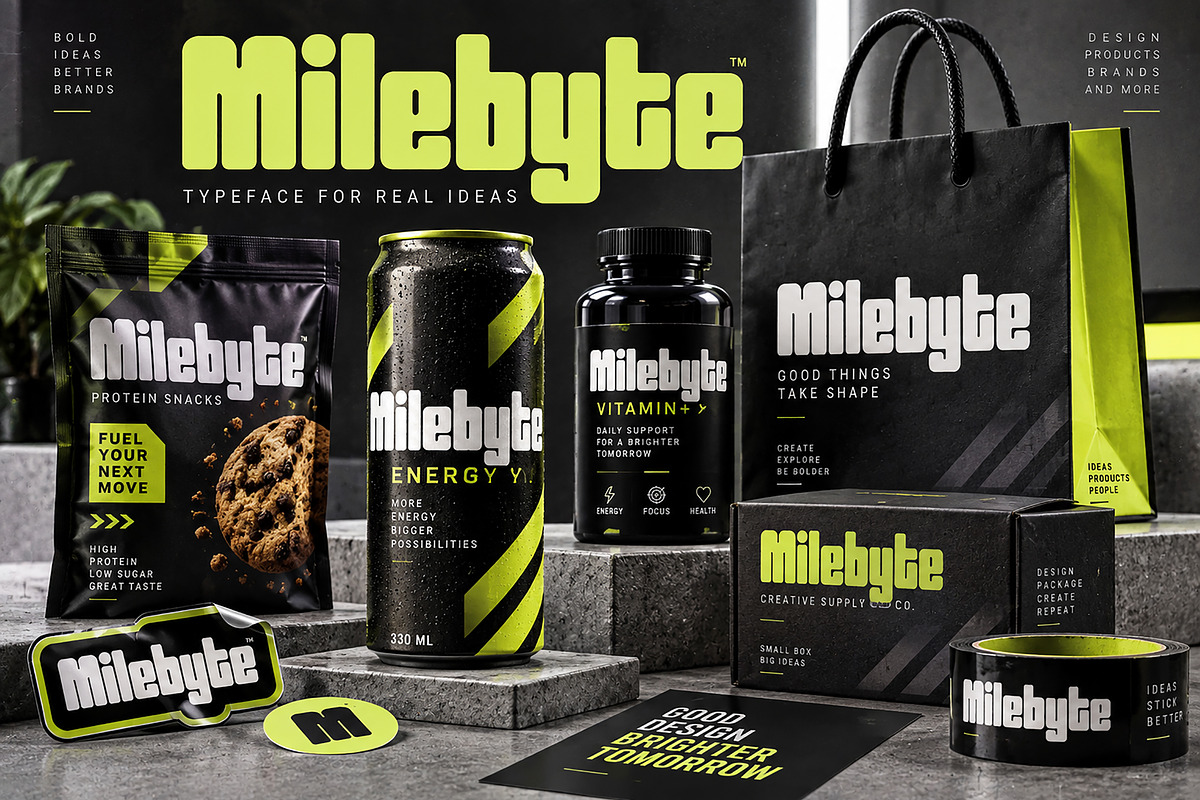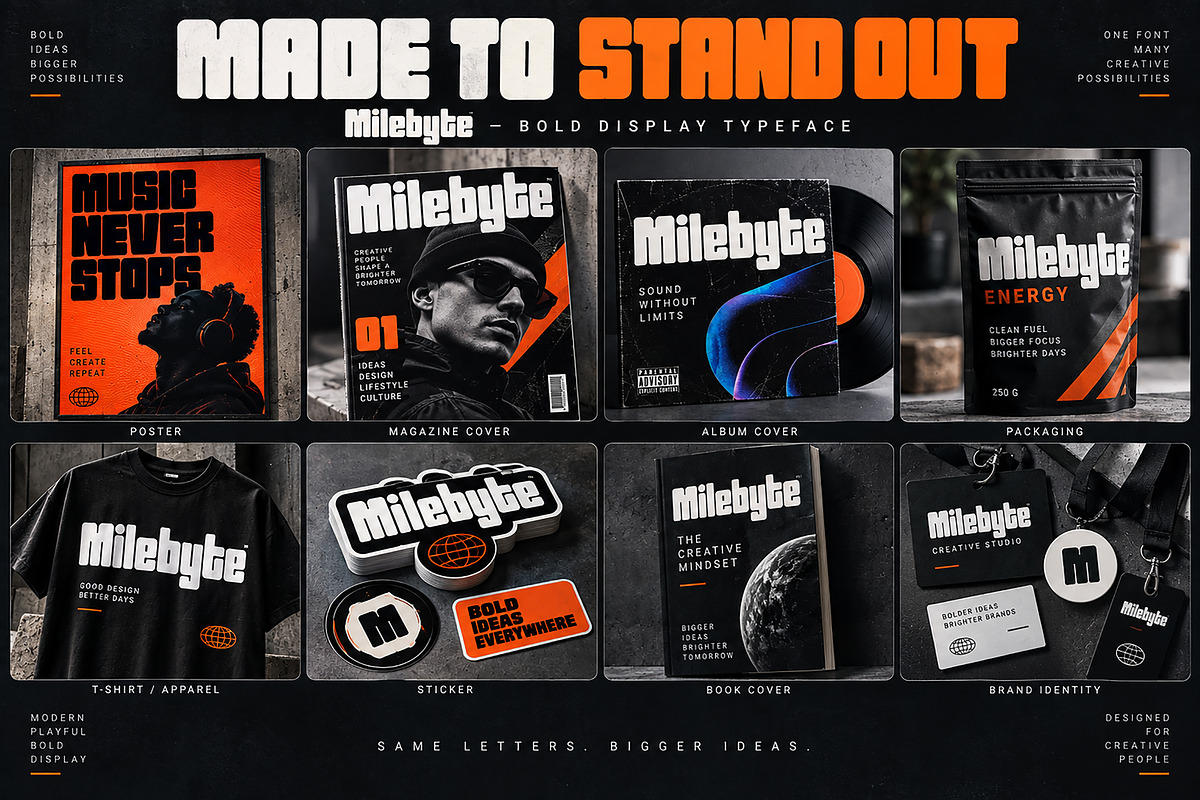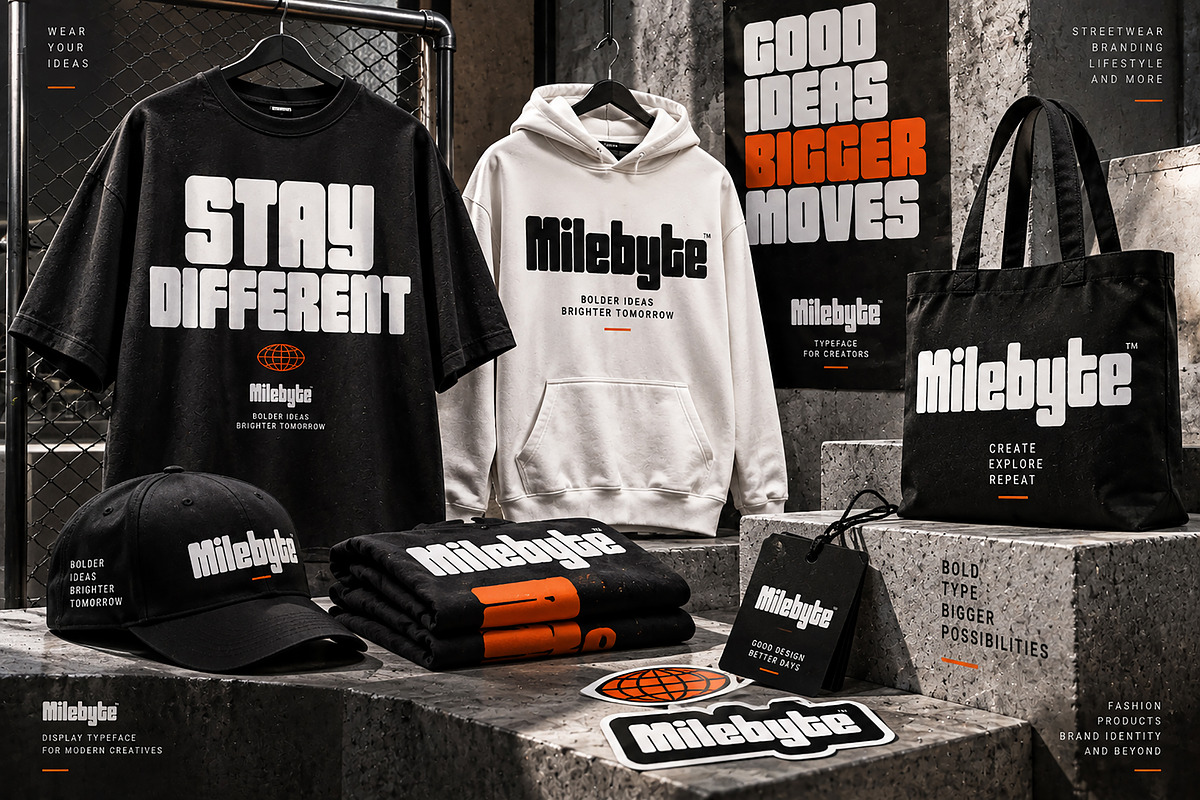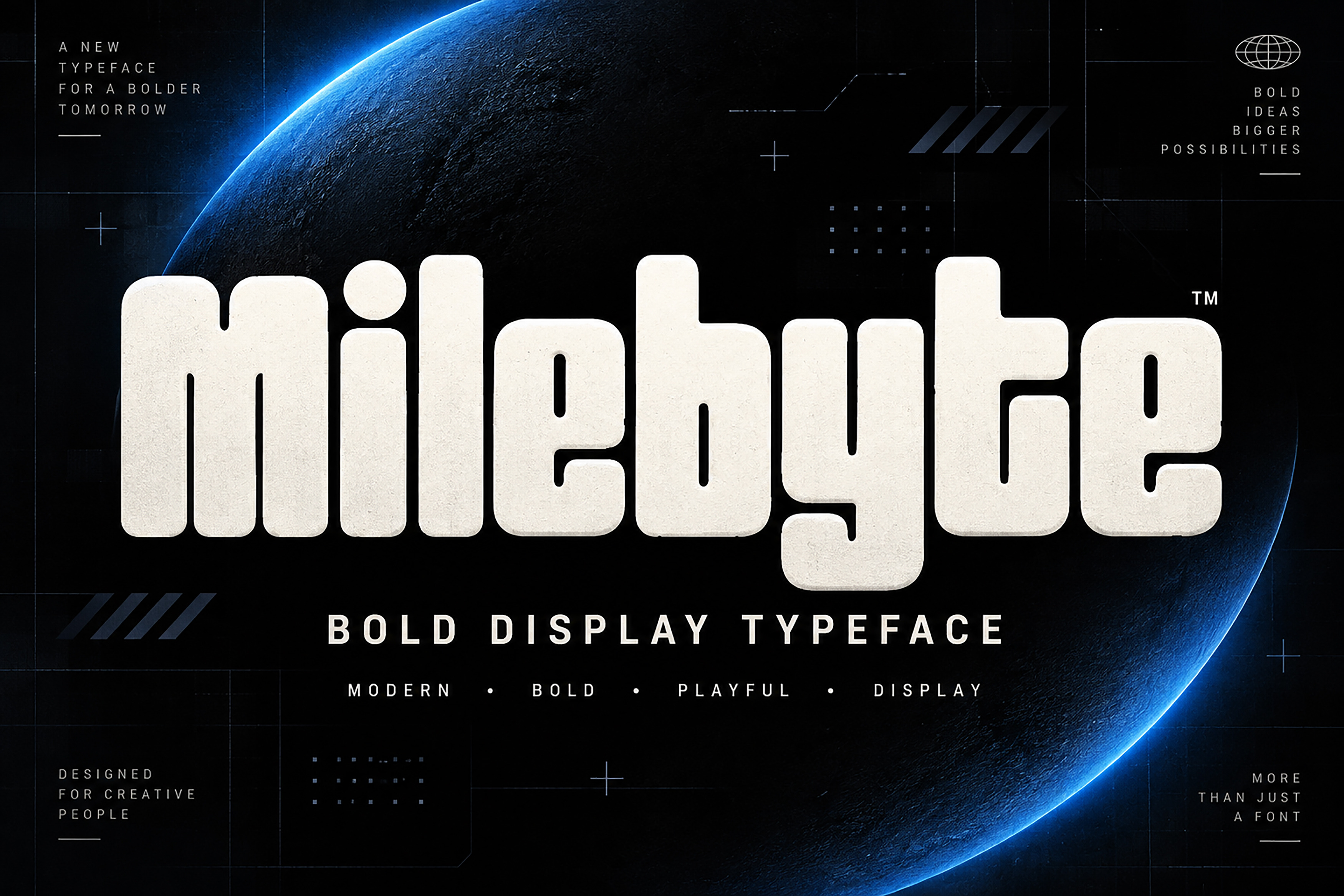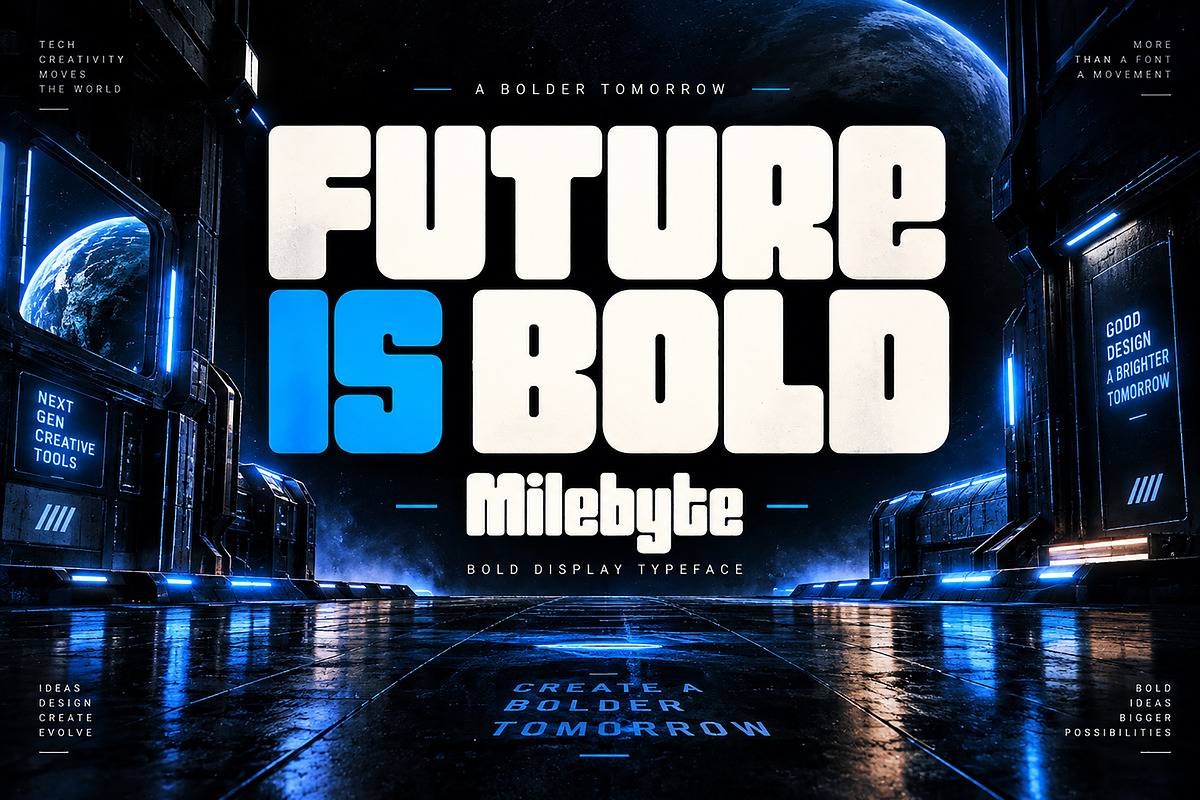
Milebyte - Bold Display Typeface
Milebyte is a bold, playful, and modern display typeface designed to make your creative projects instantly stand out. With its heavy rounded letterforms, compact proportions, and distinctive contemporary character, Milebyte brings a strong visual presence to headlines, branding, posters, packaging, apparel, and digital designs.
Its bold personality makes it especially suitable for modern branding, streetwear graphics, technology-inspired designs, posters, product packaging, advertising, social media graphics, album covers, editorial layouts, stickers, merchandise, and logo-style projects.
Whether you're creating a powerful brand identity or an attention-grabbing headline, Milebyte is designed to deliver maximum impact with a clean and memorable look.
Branding & Logo Design
Posters & Flyers
Streetwear & Apparel
T-Shirts & Merchandise
Advertising & Promotional Graphics
Technology & Digital Projects
Album & Book Covers
Magazine & Editorial Design
Stickers & Labels
Headlines & Display Typography
Creative Campaigns
Gaming & Contemporary Designs
Milebyte is built for designers who want bold typography, strong visual impact, and a modern creative attitude.